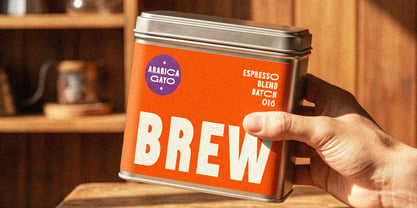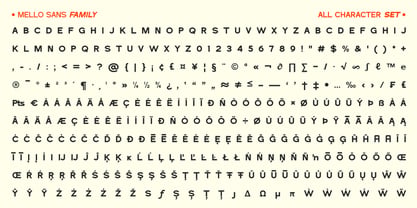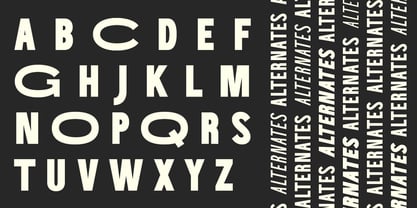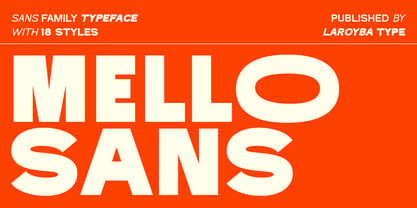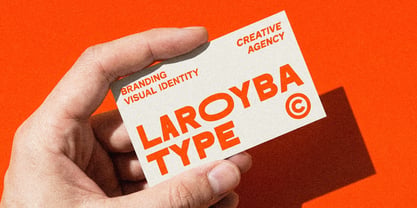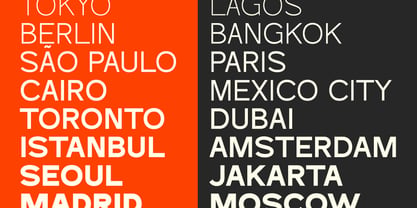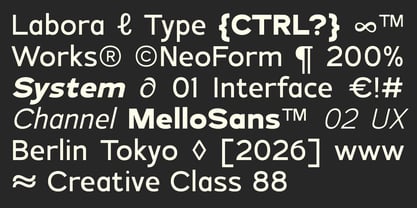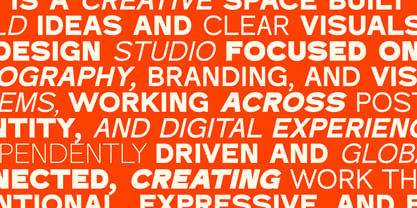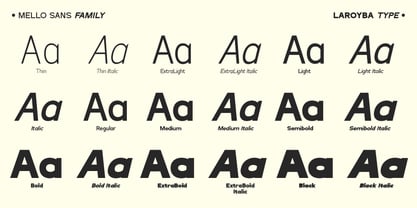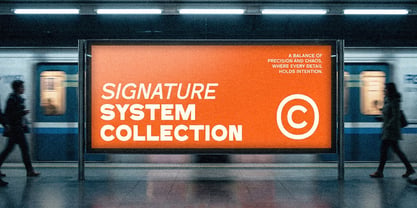
Mello Sans
by Laroyba Type
The Mello Sans Font Family was designed by Habib Abdur Rofi and published by Laroyba Type. Mello Sans contains 18 styles and family package options. More about this family
Mello Sans is a modern sans-serif typeface designed with clarity, balance, and versatility in mind. Featuring clean lines and well-proportioned forms, it delivers a contemporary and professional look suitable for a wide range of design needs.
With multiple weights and matching italics, Mello Sans provides a flexible system for creating clear hierarchy and consistent visual identity across both print and digital media.
Its minimalist yet refined design makes it highly adaptable—from corporate branding to user interfaces.
Mello Sans works perfectly as a standalone typeface or paired with Mello Serif for a complete typographic system.
Perfect for:
• Branding & corporate identity
• UI/UX and digital design
• Editorial layouts
• Advertising and marketing materials
• Clean and modern visuals
Features:
• Multiple weights
• Matching italic styles
• Clean and modern sans-serif design
• High readability for screen and print
• Versatile and professional use